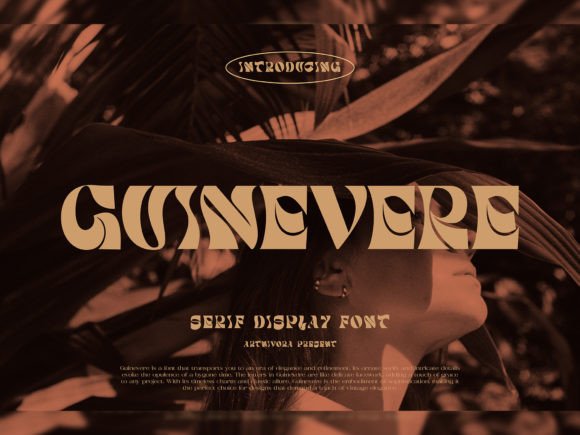
Are you tired of the same old boring fonts for your PowerPoint titles? Look no further, because we have the perfect solution for you! Introducing Guinevere, the ultimate font choice for all your Powerpoint title needs. Created by the talented artnivora.std, this simple yet captivating serif display font is guaranteed to make your presentations stand out from the crowd.
With Guinevere, you can say goodbye to dull and uninspiring fonts. This font is designed to make a statement and leave a lasting impression on your audience. Its elegant and sophisticated look will instantly elevate the visual appeal of your slides, making them eye-catching and captivating.
But Guinevere is not just limited to PowerPoint presentations. This versatile font is also perfect for logo designs, magazine layouts, social media posts, brochures, and so much more. Let your creativity run wild and explore the endless possibilities that Guinevere has to offer.
What sets Guinevere apart from other fonts is its ability to evoke emotions and create a connection with your audience. Its timeless and classic design exudes a sense of professionalism and trustworthiness, making it perfect for business presentations or branding projects. On the other hand, its elegant and graceful curves add a touch of femininity and sophistication, making it ideal for fashion or lifestyle-related content.
But that's not all! Guinevere is also incredibly user-friendly. Its smooth and easy-to-read characters ensure that your message is conveyed effortlessly, without any distractions. Plus, with its extensive language support, you can confidently use Guinevere for projects in multiple languages, reaching a wider audience.
In conclusion, Guinevere is not just another font. It's a powerful tool that will transform your designs and presentations into works of art. With its captivating charm, versatility, and user-friendly nature, this font is a must-have for anyone looking to make a lasting impression. Don't settle for ordinary fonts when you can have the best font for Powerpoint titles. Upgrade your design game with Guinevere today!